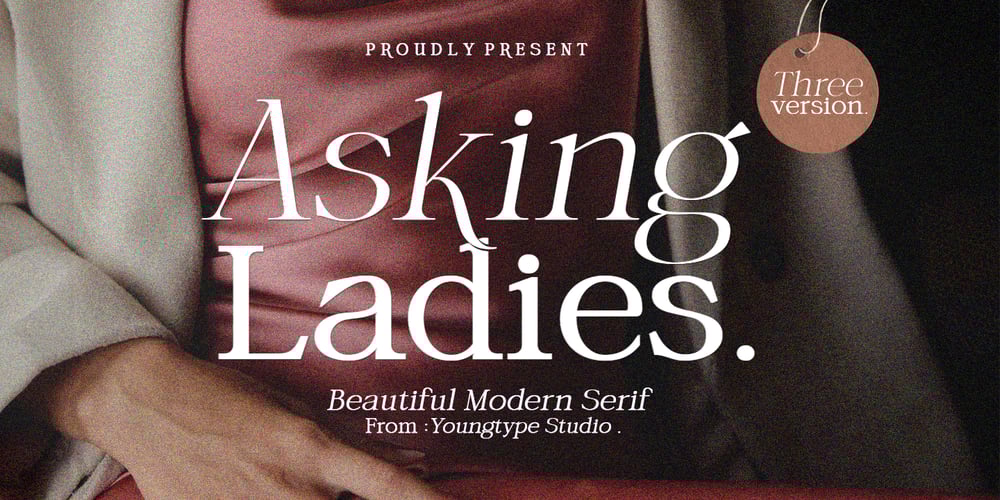
Asking Ladies Font Family was designed by Naufal Paramata and published by Youngtype. Asking Ladies contains 3 styles and family package options. New Asking Ladies Beautiful Modern Serif .This professional resource is also powerful because each font has its own magical design. Equipped with three versions Regular, Italic & Bold.You can use it for almost anything like blog headers, posters, wedding elements, t-shirts, clothing, book covers, business cards, greeting cards, branding, invitations and quotes, and so on.Feature: Uppercase Lowercase Number Accents (multilingual characters) How To Access Alternate Characters:https://www.youtube.com/watch?v=Go9vacoYmBwhttps://www.youtube.com/watch?v=XzwjMkbB-wQhttps://www.youtube.com/watch?v=x1A_ilsBsGshttps://www.youtube.com/watch?v=xFlMwARHusYhttps://www.youtube.com/watch?v=NVJlZQ3EZU0 Thanks for your purchase!